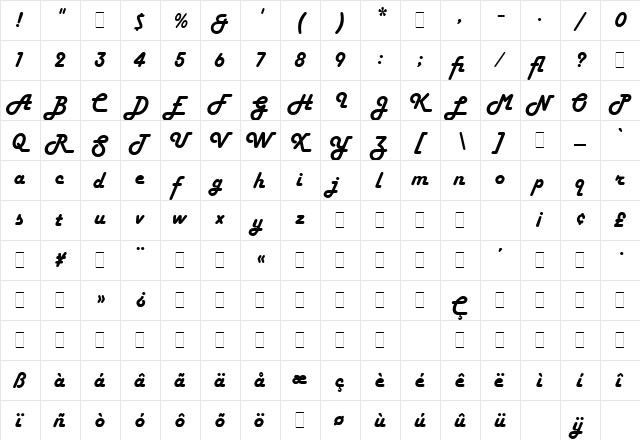
Harlow Solid LET Plain
Design Context for Harlow Solid LET Typeface
Harlow Solid LET is a composed and adaptable typeface that performs quietly and consistently across a wide range of design contexts.